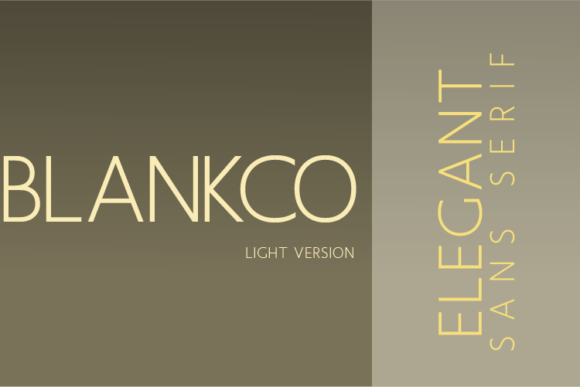
The Blankco Light Font: A Fresh Take on Geometric Sans-Serif
I’ll never forget the design project that led me to discover the Blankco Light Font. I was working on a branding campaign for a trendy new coffee shop, and I needed a font that would convey a sense of modernity and sophistication. As I scrolled through my font library, I stumbled upon Blankco, and it was love at first sight! ✨
Inspired by iconic typefaces like Futura and Avant Garde, Blankco is a fresh, geometric, sans-serif font that has quickly become a staple in my design toolkit. With its big x-height value, geometrical letterforms, sharp edges, and small stroke contrast, Blankco is reminiscent of the neo-grotesk fonts of the 20th Century.
• ✅ Extremely versatile: Blankco can be used in a wide range of applications, from magazines and posters to branding and websites.
• ✨ Geometric and modern: The font’s sharp edges and clean lines give it a sleek, contemporary feel.
• 🔍 Highly legible: The big x-height value and simple letterforms make Blankco easy to read, even at small sizes.
While Blankco is an excellent font, it’s not perfect. Here are a few things to keep in mind: ⚠️
• 🤔 Limited expressiveness: As a geometric sans-serif font, Blankco can come across as somewhat sterile or formal in certain contexts.
• ⚠️ Not ideal for body text: While Blankco is legible, its geometric nature can make it feel a bit cold or distant for long blocks of text.
According to the font’s creators, Blankco was inspired by the iconic typefaces of the 20th Century, such as Futura and Avant Garde. The goal was to create a font that would be both modern and timeless, with a unique blend of geometric and neo-grotesk elements.
Q: Is Blankco suitable for body text?
A: While Blankco is legible, its geometric nature can make it feel a bit cold or distant for long blocks of text. Consider using a serif font for body text and reserving Blankco for headings and titles.
Q: Does Blankco support OpenType features?
A: Yes, Blankco supports OpenType features, including ligatures, stylistic alternates, and glyphs.